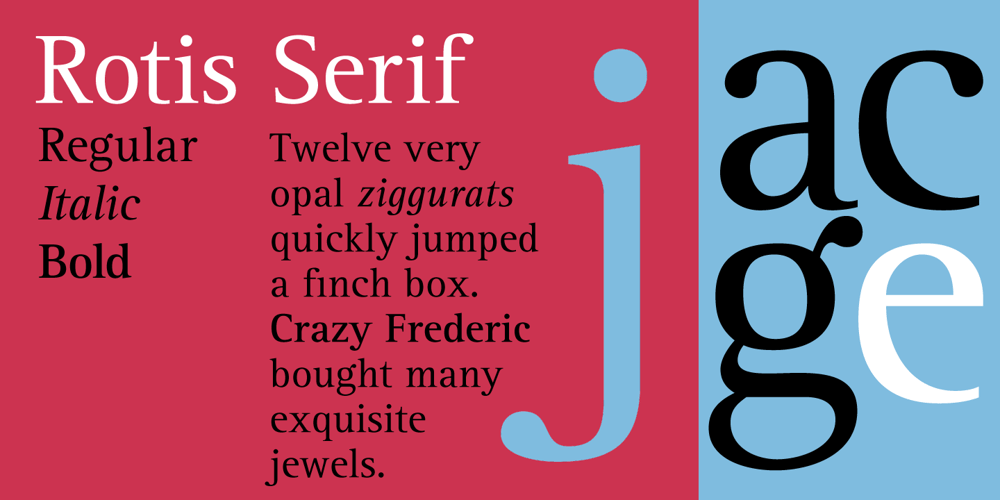
Rotis Serif Font Family was designed by Otl Aicher and published by Monotype. Rotis Serif contains 9 styles and family package options. Rotis is a large typeface family consisting of, Serif, Semi Serif and Sans Serif font styles. Agfa Rotis was created for Agfa Compugraphic. The font styles are matched for weight and height to give consistency when mixed. Certain round characters have a distinctive calligraphic treatment which is apparent in all styles. A versatile family which can be used for text as well as display setting. Designed by Otl Aicher at Druckhaus Maack, Agfa Rotis is very readable and good for use in any contemporary texts.